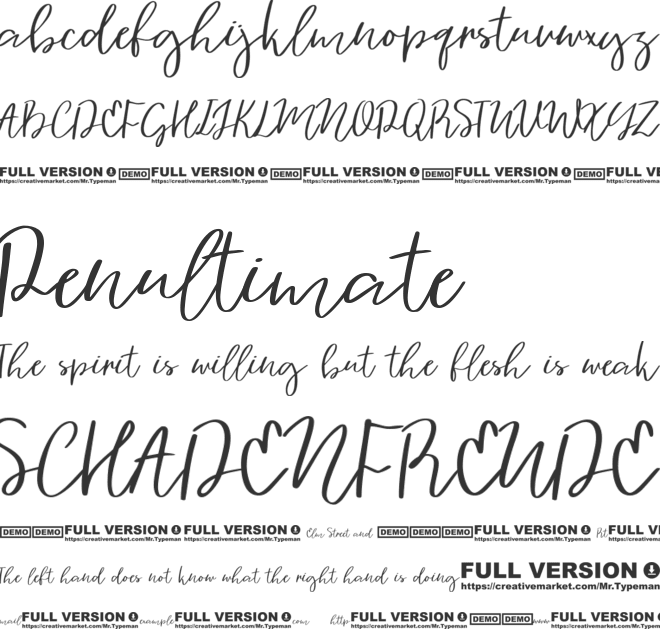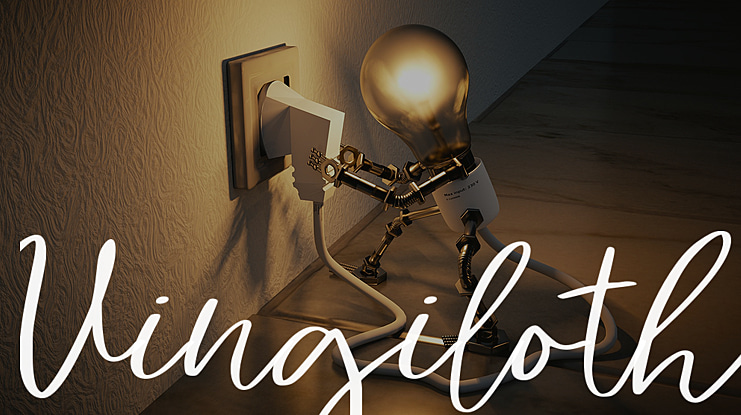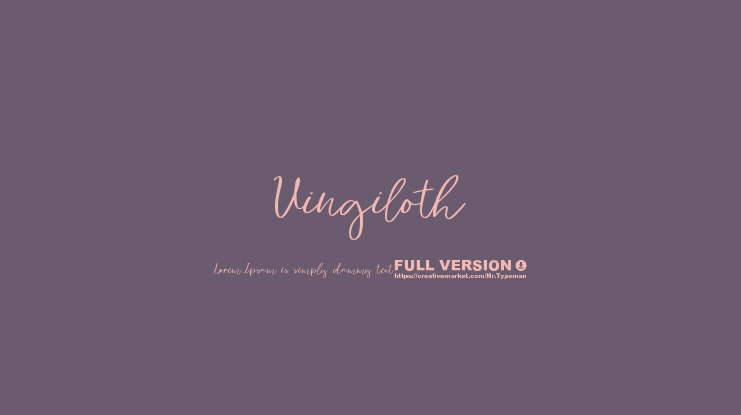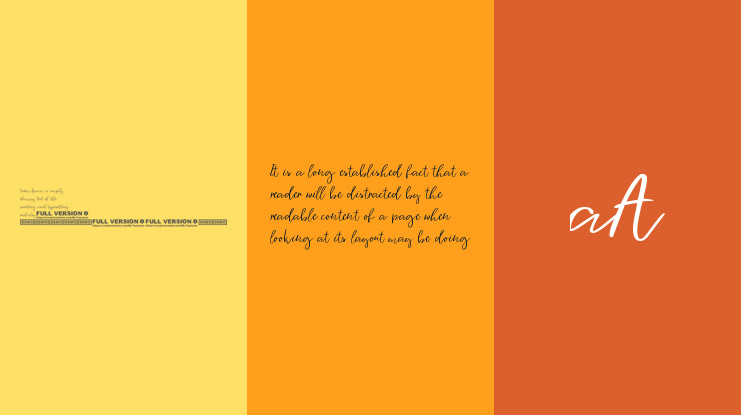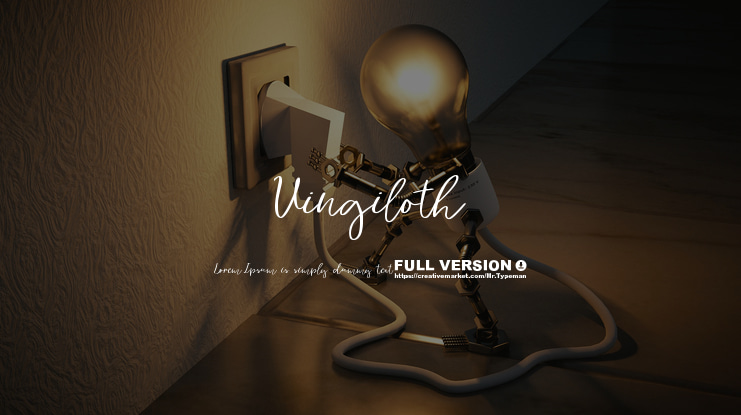
Vingiloth Font
I'm glad to introduce you my new font family **Vingiloth** - delicate script fonts, wich simulates natural handwriting. **Vingiloth** is a couple of fonts:
Full version of each font comes with standard punctuation, numerals and special letters for most of the European languages.